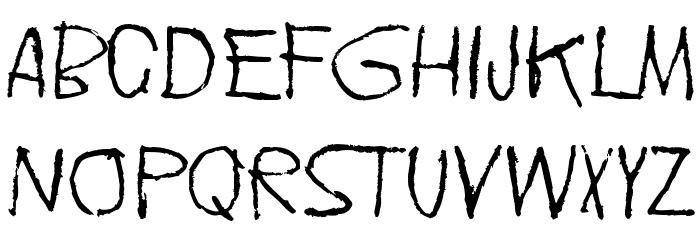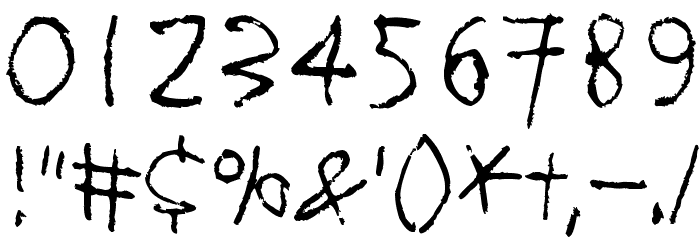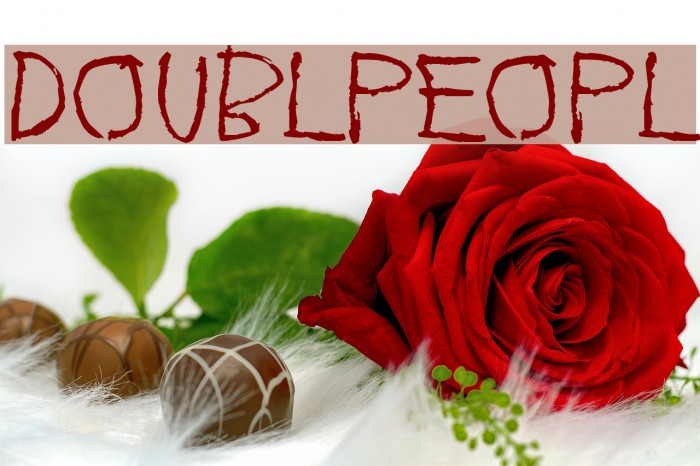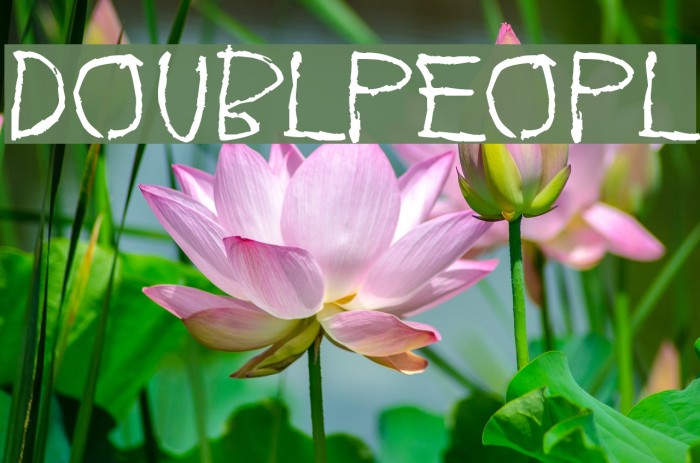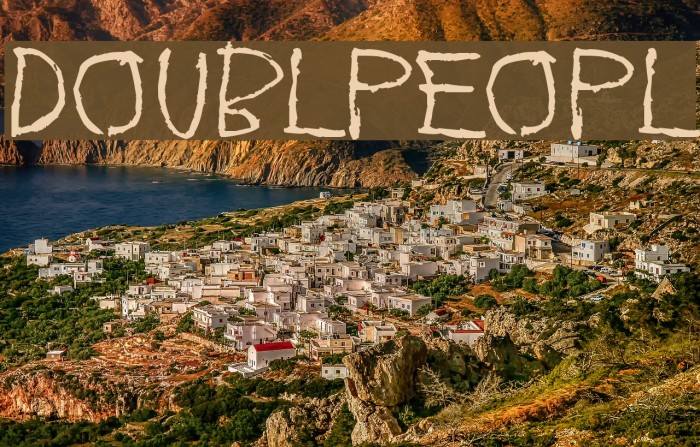
Doublpeopl Font
This font features a hand-drawn, textured style that mimics the appearance of chalk or crayon on a rough surface. The characters are irregular and slightly tilted, giving them a casual and playful feel. Each letter and number is distinct, with varying stroke thicknesses that add to the font's dynamic and lively character. The uppercase and lowercase letters maintain a consistent style, while the numerals and special characters complement the overall aesthetic. This font's unique, artistic quality makes it stand out, perfect for projects that require a personal touch.
A hand-drawn, textured font with a playful and casual style.
- Proposed Projects: Ideal for children's book covers, creative posters, artistic branding, and informal invitations.